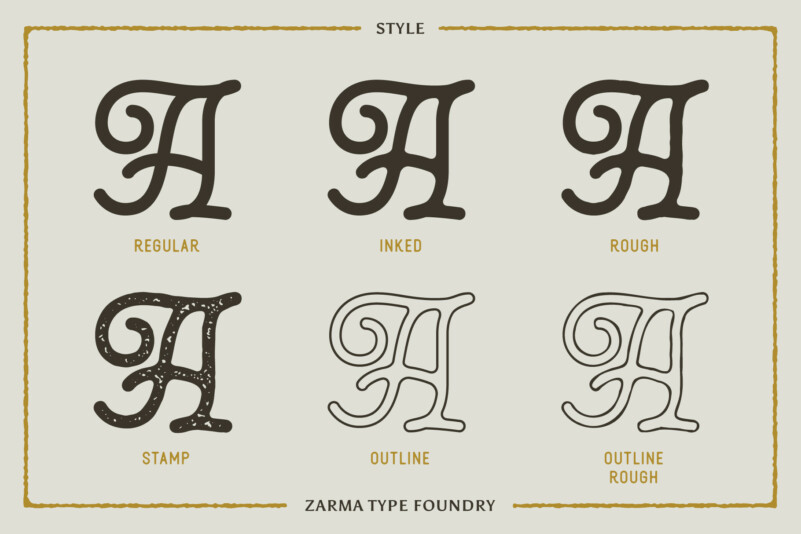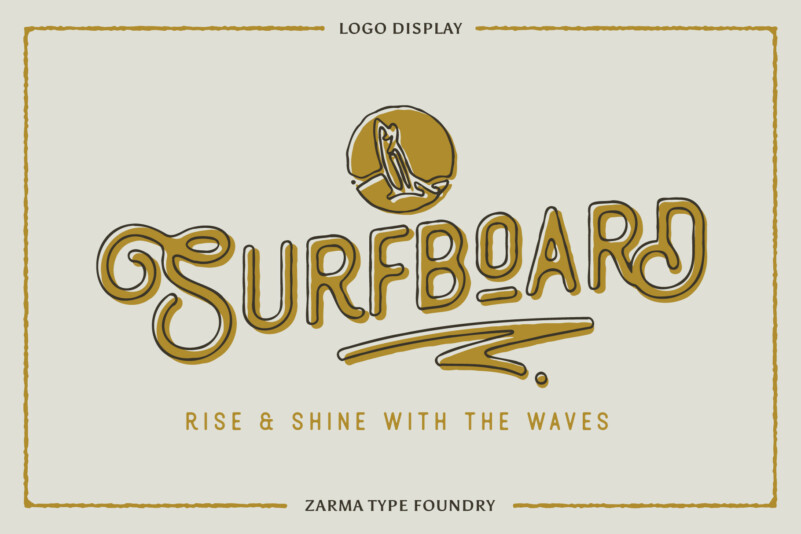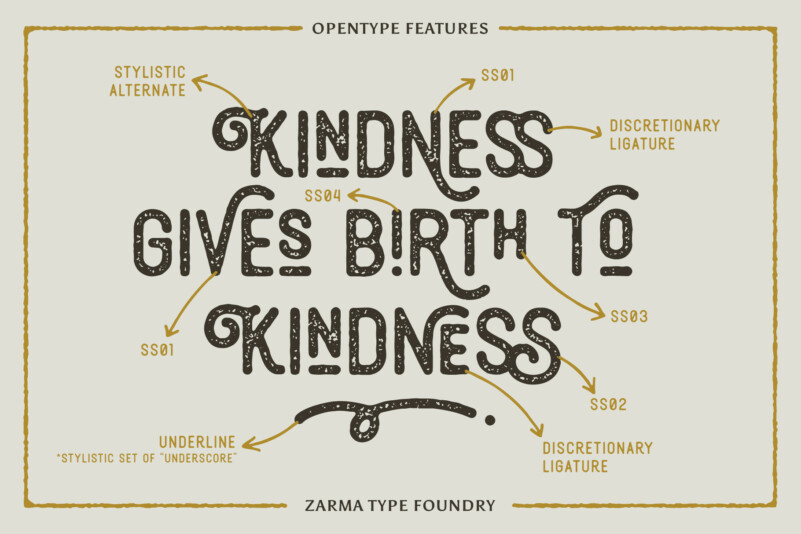
Thourenz Display Font
Thourenz Display Font is a vintage display typeface contains a set of 3 style fonts with an authentic vintage look. Anerome comes packed with over 300 glyphs containing stylistic alternates and discretionary ligature characters. This font is perfect for people are looking for vintage aesthetic or logotype. Suitable for any graphic designs such as branding materials, print, business cards, logo, poster, t-shirt, quotes .etc.